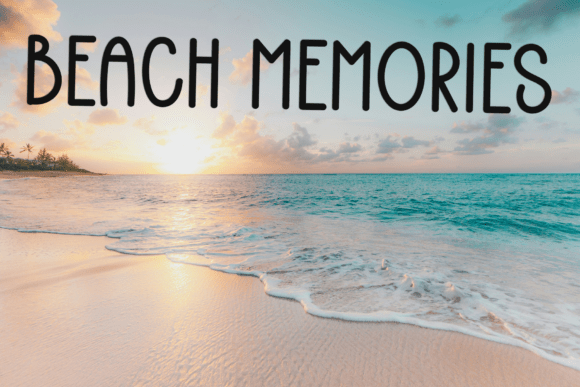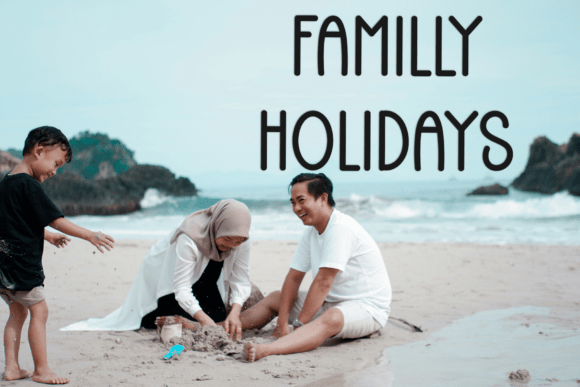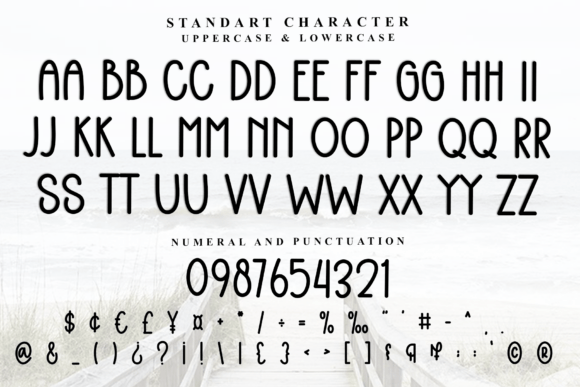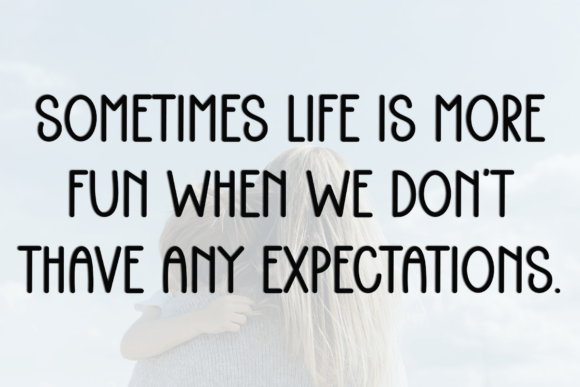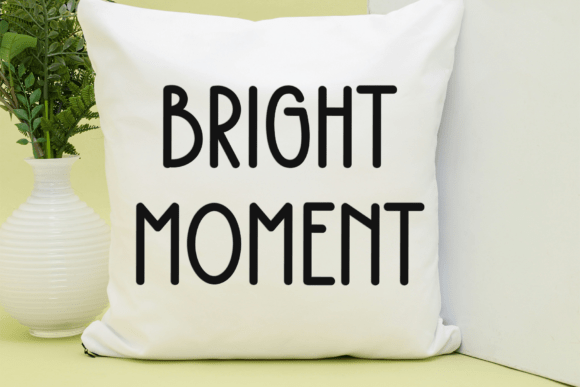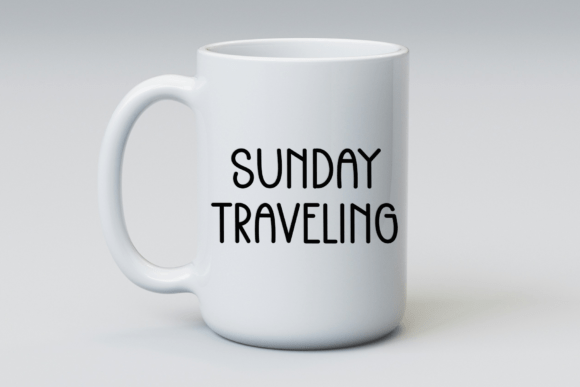
Introduction to School Writing Font
Remember the thrill of creating your first craft project in elementary school? The excitement of bringing your imagination to life, using colorful markers and glue to create something truly unique? For many of us, that spark of creativity never fades, and we continue to seek out new and inspiring tools to fuel our artistic endeavors.
One such tool is the School Writing Font, a beautiful and eye-catching typeface that’s perfect for designers, crafters, and anyone looking to add a touch of whimsy to their creative project. With its soft, unique strokes and transparent background, this high-quality font is a valuable addition to any design resource.
Key Features of School Writing Font
- High-quality, hand-drawn design perfect for creative projects and educational resources.
- Includes 500+ glyphs, making it suitable for a wide range of languages and writing systems.
- Designed with a clear and legible style, ideal for use in presentations, posters, and other visual aids.
- Can be used as a design resource for educational materials, such as worksheets, handouts, and activity sheets.
Honest Review: School Writing Font
As a designer, I’m always on the lookout for high-quality design resources that can elevate my creative projects. Recently, I stumbled upon the School Writing Font, and I’m excited to share my honest review with you.
- ✨ The School Writing Font features a unique, hand-written style that’s perfect for adding a personal touch to your designs.
- ✨ The font is highly legible, even at smaller font sizes, making it a great choice for body text.
- ⚠️ The font may not be suitable for formal or professional applications, as its casual, handwritten style may come across as unprofessional.
- ⚠️ The font is a bit on the heavier side, which may make it difficult to read in certain contexts.
Tips for Getting the Most Out of School Writing Font
The School Writing Font is commonly used in educational settings, such as schools and universities. It is also used in creative projects, such as presentations and flyers. Additionally, it is used in design resources, such as brochures and business cards.